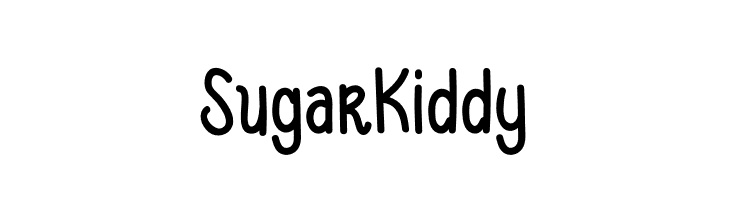
A playful, handwritten font with rounded edges and a whimsical style.
Playful handwritten script font.
A playful, hand-drawn font with a whimsical and dynamic style.